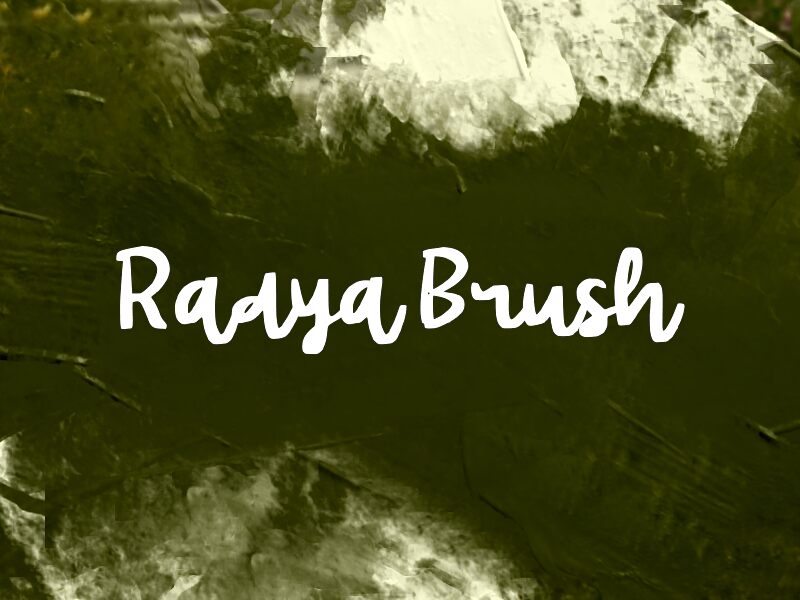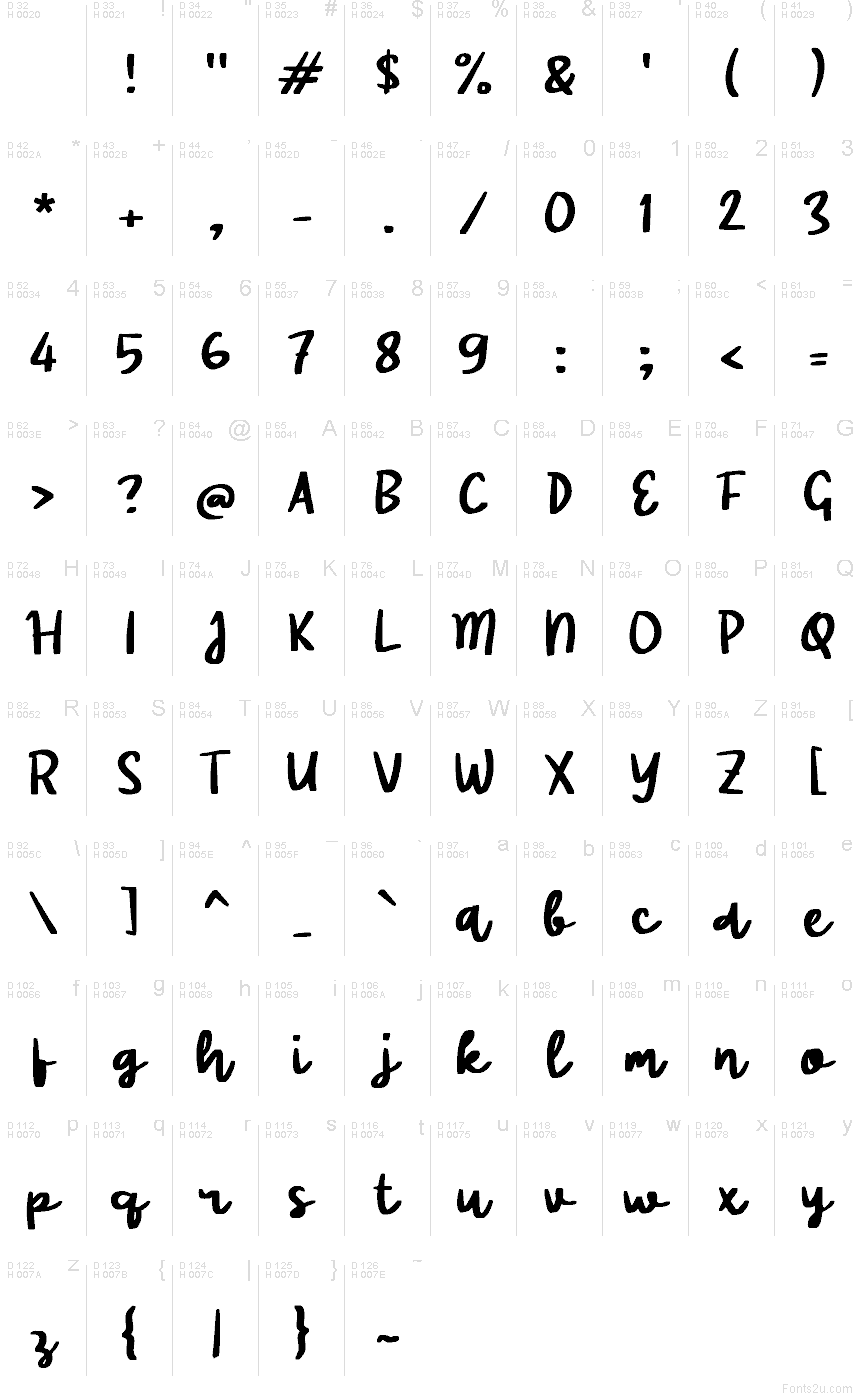
Radya Brush by Wep is a free brush font shaped by a loose, hand-painted rhythm. The strokes stay broad and dark, but the edges wobble just enough to keep the lettering lively, with rounded turns and a slight bounce that feels more marker-painted than polished script.
That easy movement gives short titles a relaxed pull on packaging, cafe menus, social posts, greeting cards, and casual logo ideas. It also makes sense for quote graphics and product labels where you want lettering that feels quick and personal rather than carefully calligraphed.